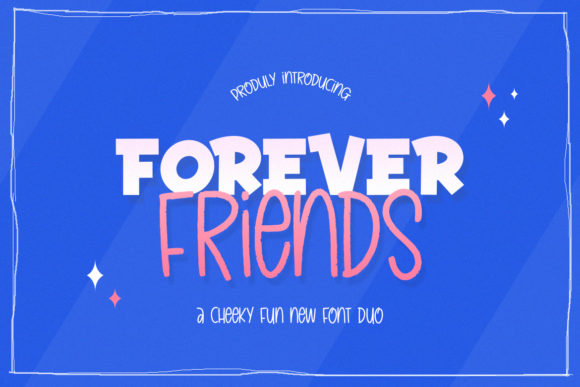
Embrace the boundless world of creativity with Forever Friends Duo Font, a remarkable and captivating display font. This dynamic duo, crafted by the skilled hands at Salt and Pepper Fonts, presents an enchanting blend of a chunky and a skinny font, offering endless possibilities for your design endeavors.
Unleash your imagination and let your words dance with charm and personality! Forever Friends Duo Font empowers you to express yourself in a unique and captivating way. Ideal for crafting eye-catching headlines, alluring logos, captivating social media posts, and any project that demands attention, this font will transform your creative visions into reality.
With its playful and quirky nature, Forever Friends Duo Font adds a touch of whimsy and character to your designs. Its chunky font exudes a bold and playful energy, grabbing attention with its substantial presence. Paired with the slender and delicate skinny font, a harmonious contrast emerges, creating visual interest and depth.
Step into a world of limitless creativity with Forever Friends Duo Font! Dive into a realm where your designs come alive with personality, captivating your audience and leaving a lasting impression. Let your imagination soar as you craft stunning posters, vibrant flyers, engaging presentations, and any creative project that ignites your passion.
Indulge in the versatility of Forever Friends Duo Font, a font that adapts seamlessly to a myriad of design styles. Whether you seek a playful and vibrant aesthetic or a more elegant and sophisticated look, this font delivers. Its versatility extends to various projects, from cheerful invitations and greeting cards to professional business cards and brochures.
With Forever Friends Duo Font, the possibilities are infinite. Experience the joy of creating designs that resonate with your audience, capturing their attention and leaving them captivated. Embrace the creative power of this font duo and watch your designs transform into captivating masterpieces!